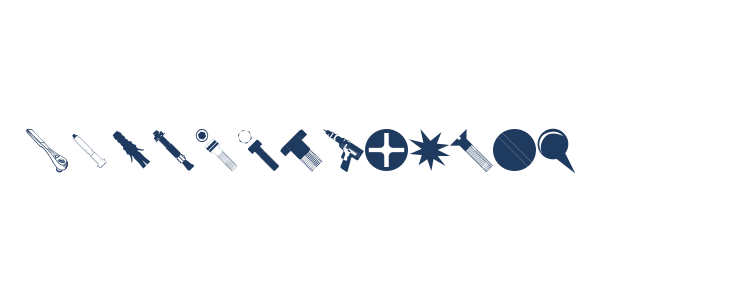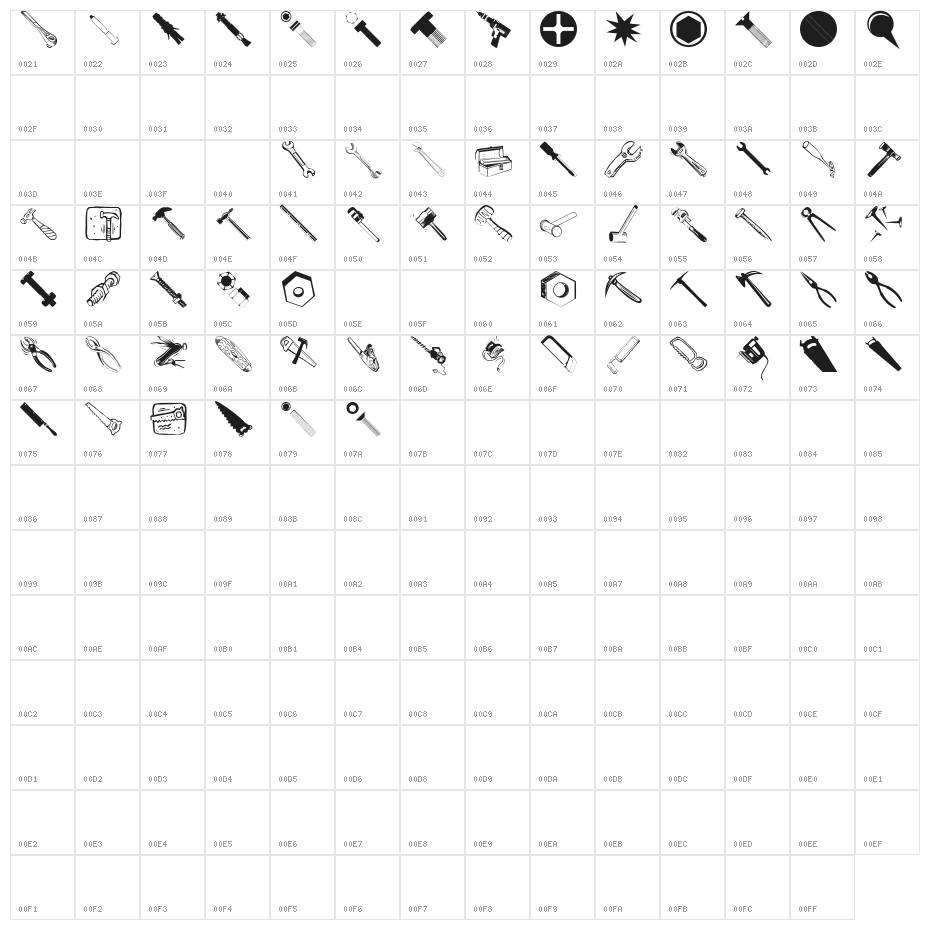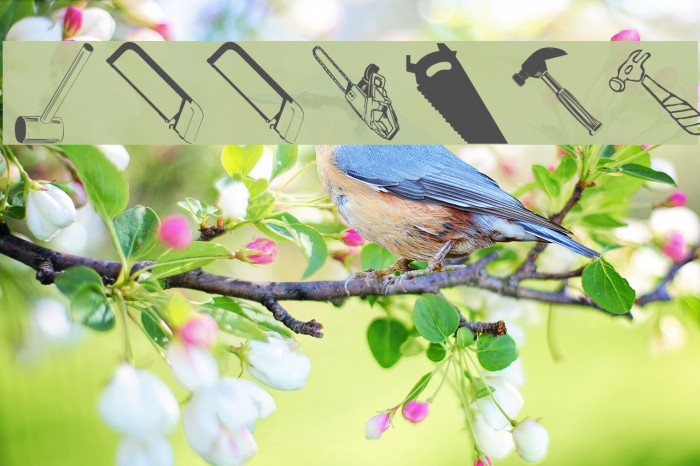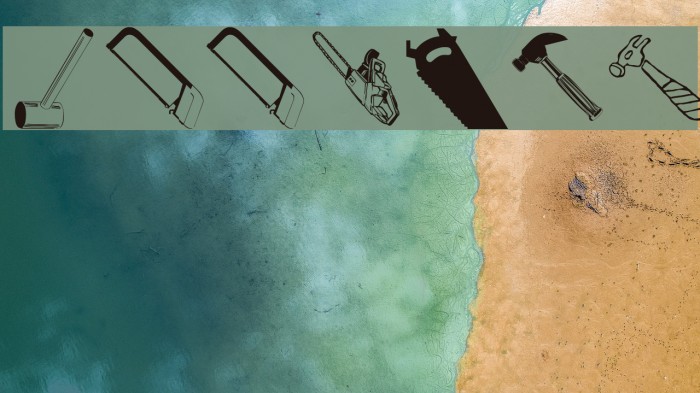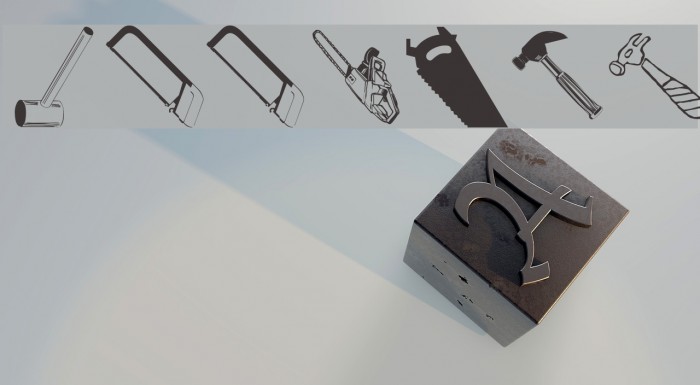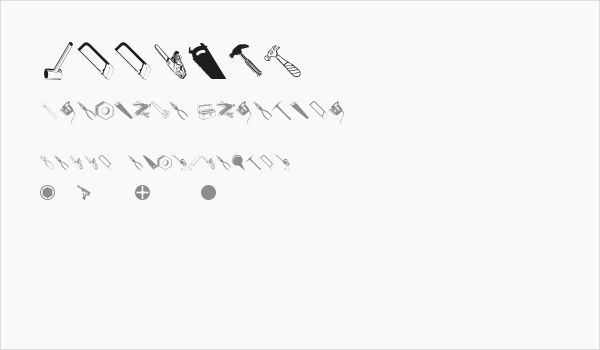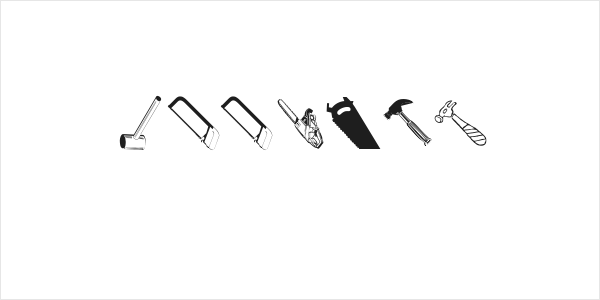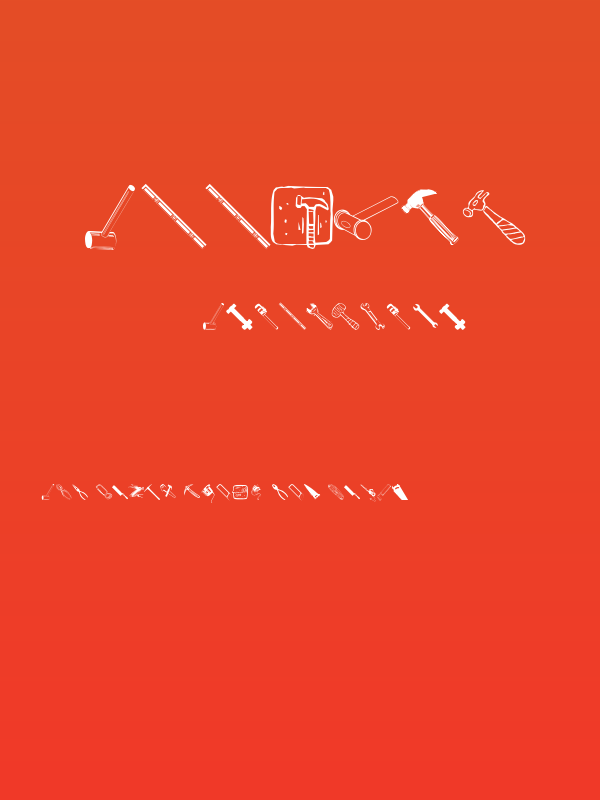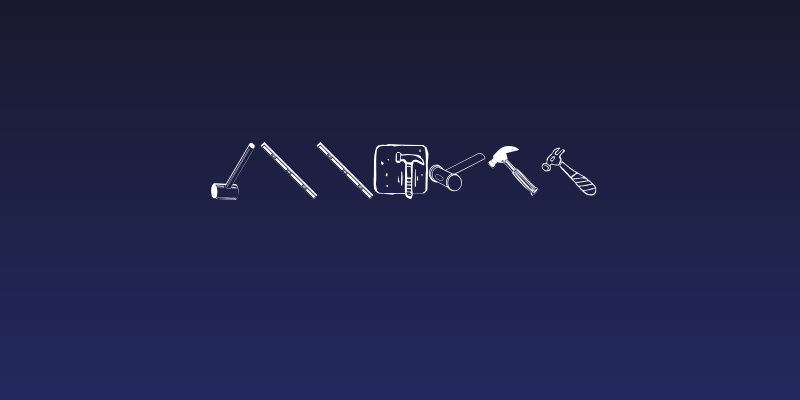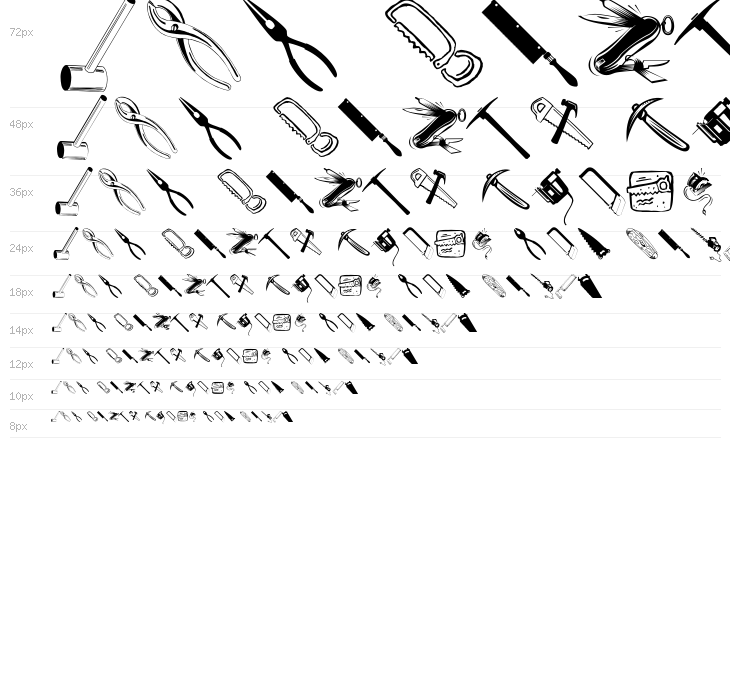
ToolsMK Font
A pictogram-style dingbat font featuring detailed black-and-white illustrations of various hand tools, hardware, and construction equipment. Each glyph is a unique, recognizable tool or hardware item, rendered with clear outlines and minimal shading.
| Overall Style | Decorative, Thematic, Illustrative |
| Use Case | Icons, Infographics, Themed headings, Visual aids |
| Proposed Projects | DIY guides, hardware store signage, educational materials, tool catalogs, infographics, posters. |